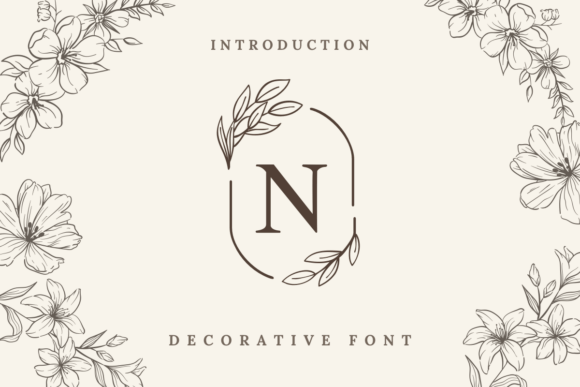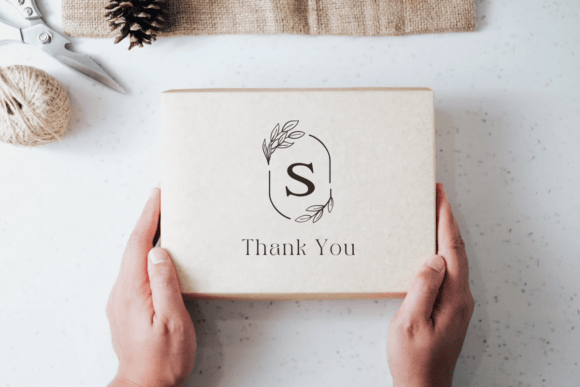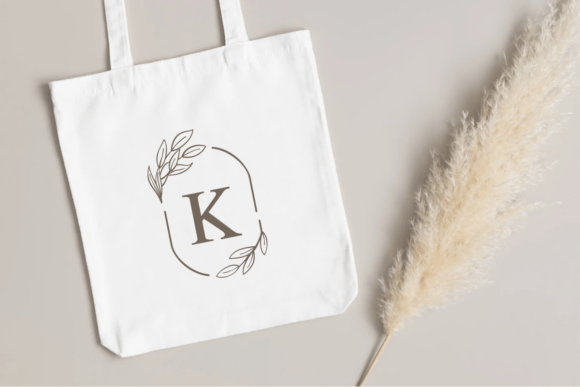
Monday Monogram Font
About the Monday Monogram Font
Explore the possibilities with Monday Monogram Font, a font that offers both beauty and functionality. Monday Monogram is an elegant and refined decorative font designed to showcase beautifully crafted initials and ornamental lettering. Featuring classic serif characters surrounded by delicate botanical flourishes, this typeface is perfect for wedding invitations, luxury branding, packaging, or personalized stationery. Its graceful lines and timeless appeal make it an ideal choice for anyone seeking sophistication in their design work.
Monday Monogram excels in applications requiring a touch of refined elegance, such as logos, wedding stationery, and high-end packaging design. Its detailed flourishes are best showcased at larger sizes, making it less suitable for body text or UI elements where readability is paramount. Avoid using it in long paragraphs or small print.
The font’s personality is sophisticated and romantic, lending itself to brands focused on luxury, beauty, or personalized experiences. It pairs well with clean sans-serif fonts like Helvetica Neue for a balanced contrast, or with a delicate script font like Great Vibes for a more cohesive, flowing aesthetic. A simple serif like Garamond could also provide a classic counterpoint.
For maximum impact, use Monday Monogram sparingly, focusing on key elements to maintain visual interest and avoid overwhelming the design. Overuse could diminish its impact.